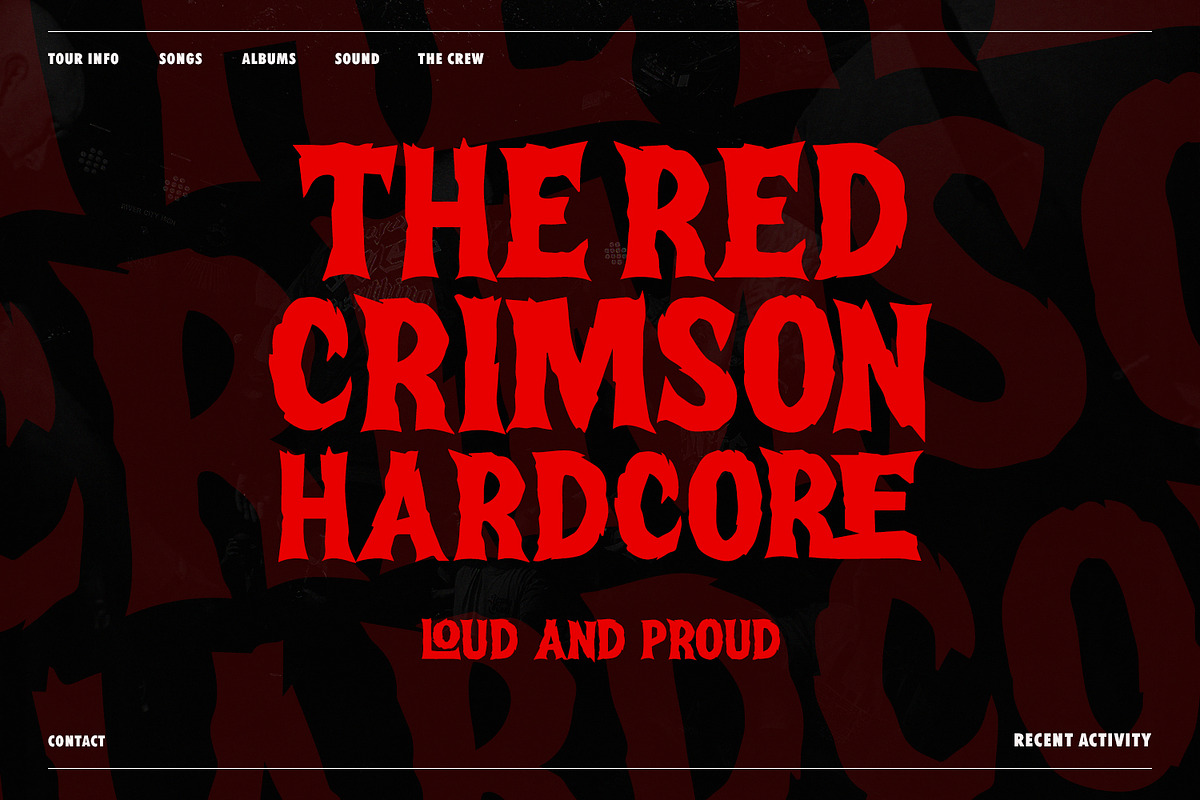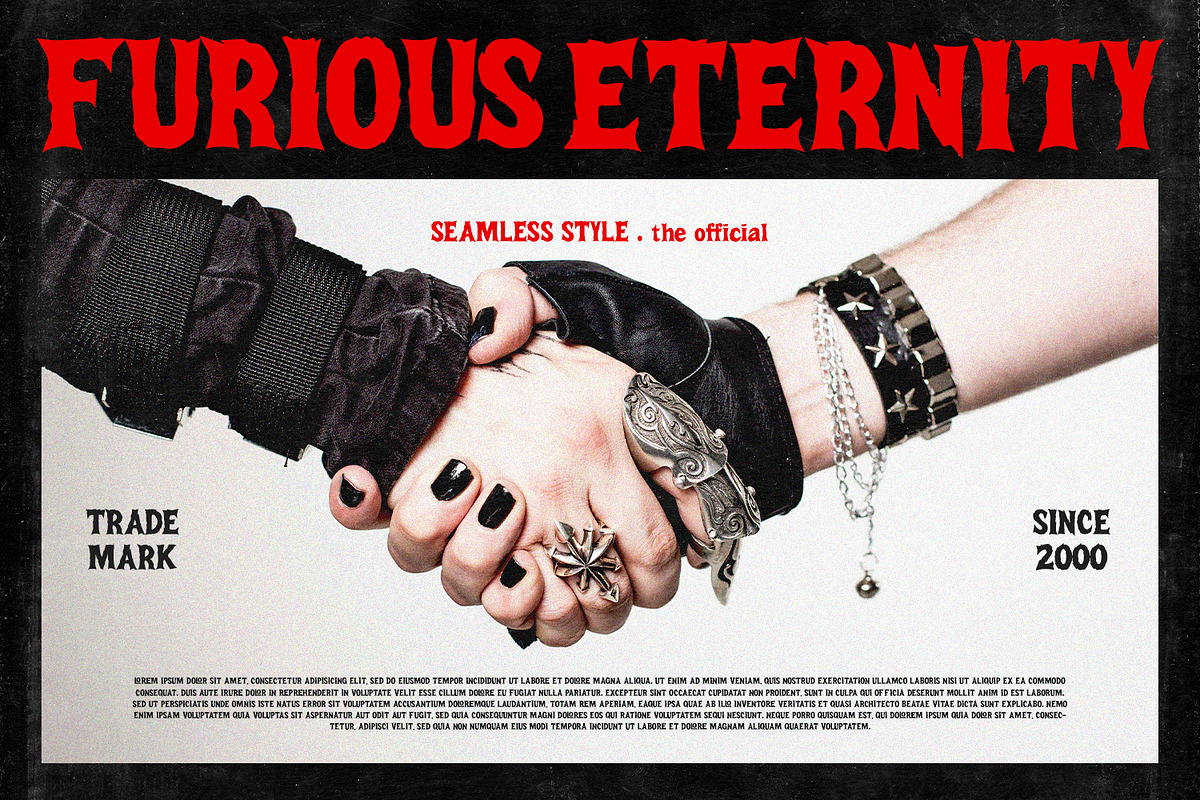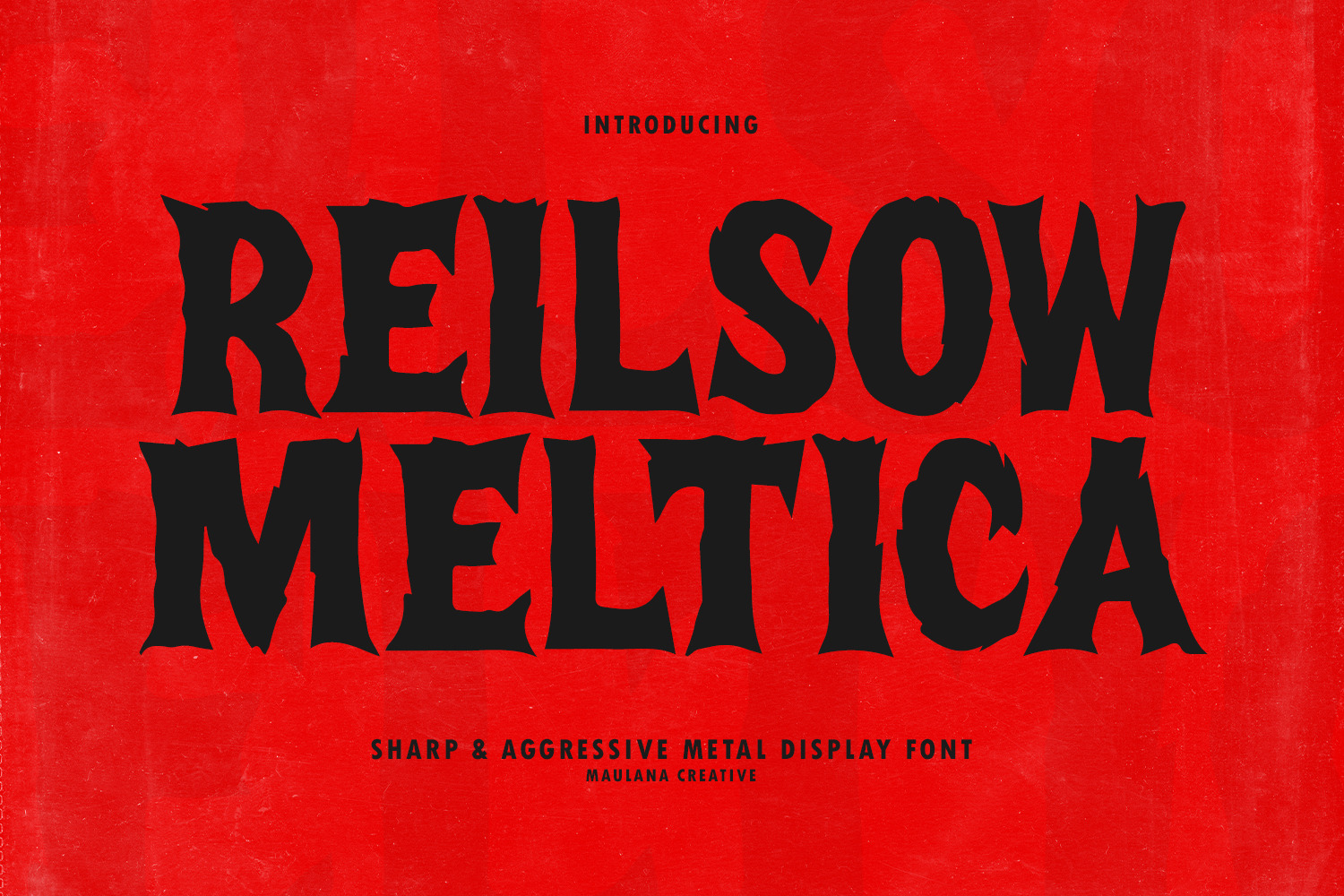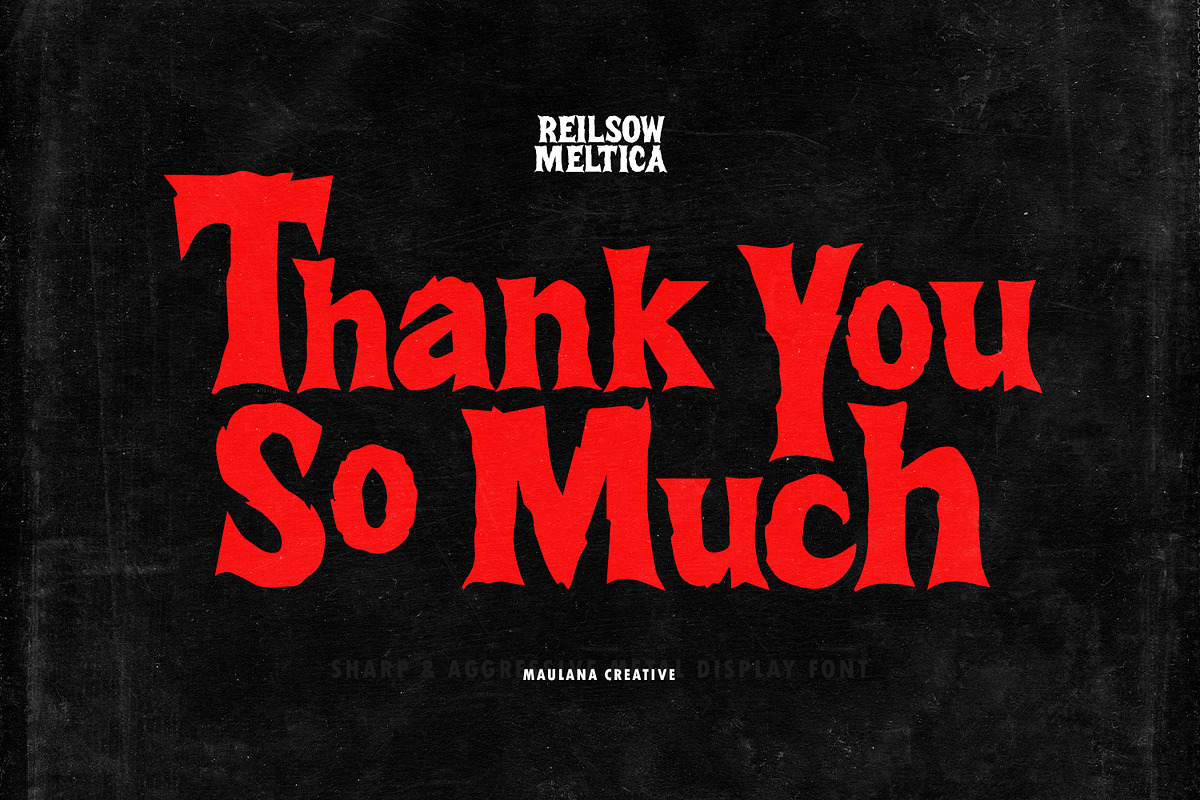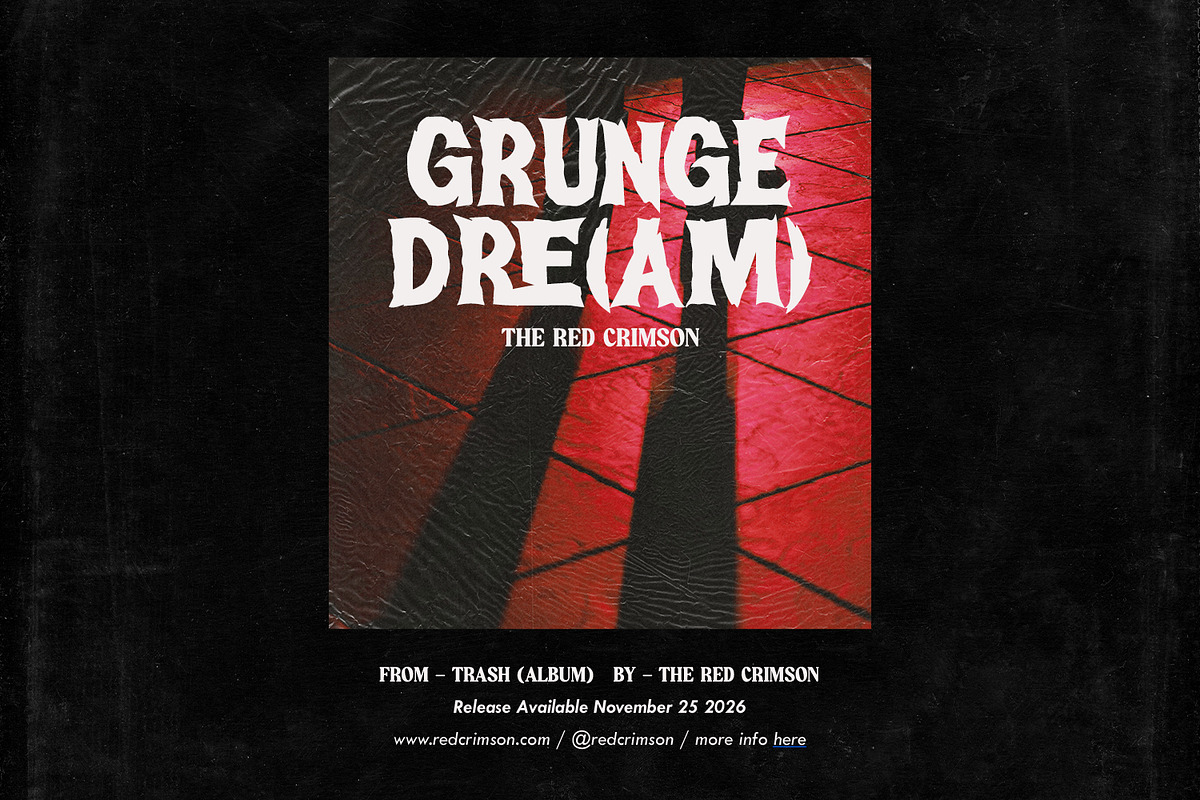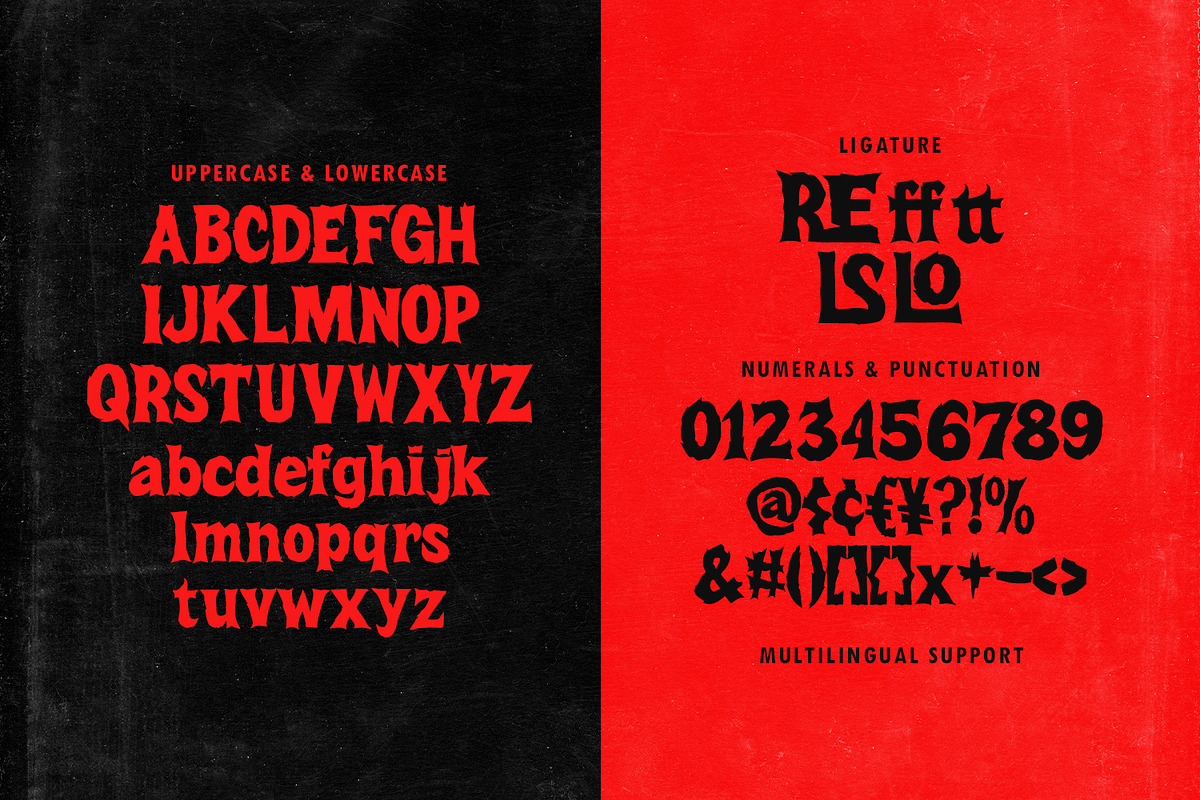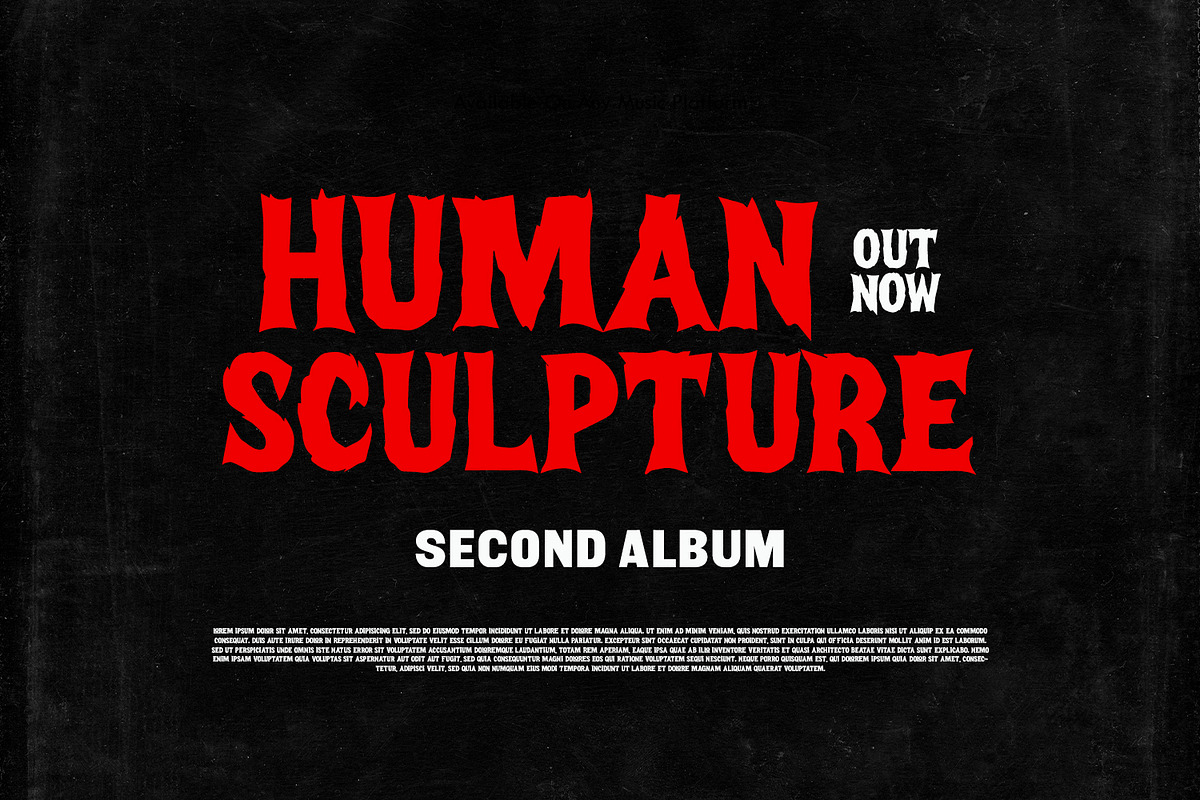
Reilsow Meltica Sharp Metal Font
Shatter the silence with the raw, jagged power of Reilsow Meltica.
Reilsow Meltica is a high-impact display font specifically engineered for projects that demand an aggressive, edgy presence. Featuring sharp, thorny letterforms and a "melted" yet precise silhouette, this font captures the intense energy of underground music and street culture. It is the ultimate choice for designers looking to create bold, unforgettable headlines.
Perfect for High-Octane Design:
- Music Branding: Ideal for hardcore, death metal, grunge, and punk rock album covers or tour posters.
- Apparel & Streetwear: Create "seamless style" for clothing brands, t-shirt graphics, and lifestyle merchandise.
- Aggressive Logos: Build powerful identities for gaming, extreme sports, or high-energy brands.
- Dynamic Posters: Ensure your message stands out with a font that feels as loud as a concert.
- Complete Character Set: Includes both Uppercase and Lowercase letters.
- Technical Versatility: Comes with Numerals, Punctuation, and essential Ligatures for custom flair.
- Global Reach: Features Multilingual Support to cater to international design needs.
- Modern Aesthetic: A sharp and aggressive look crafted by Maulana Creative.